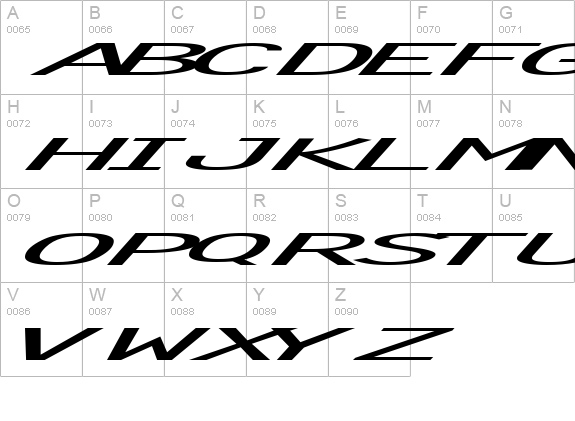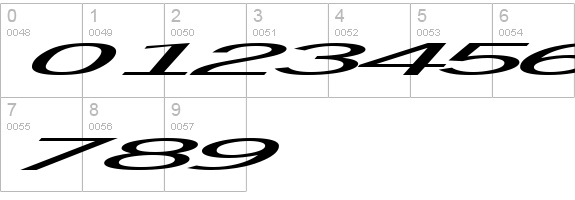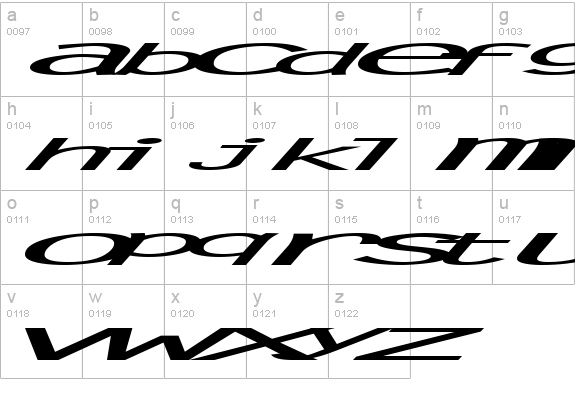
Significa Font Details
Introducing Significa, a captivating and modern typeface that effortlessly merges sophistication with contemporary style. This versatile font showcases a harmonious balance between elegance and legibility, making it the perfect choice for a wide range of design projects. With its clean and refined letterforms, Significa exudes a sense of professionalism and refinement. Each character is meticulously crafted, ensuring optimal readability in both print and digital mediums. Whether used for branding, editorial design, or web interfaces, this font effortlessly conveys a sense of refined aesthetics and sophistication. What sets Significa apart is not only its impeccable design but also its accessibility. This remarkable font is available for free download exclusively at FontsMarket.com. With just a few clicks, designers, creatives, and enthusiasts alike can easily access this exceptional typeface, unlocking its full potential to elevate their projects to new heights. Whether you are a professional designer seeking an elegant solution or an aspiring creative looking to make an impression, Significa offers the perfect blend of style and functionality. Its versatility allows it to adapt seamlessly to various design contexts, ensuring that your message is conveyed with clarity and impact. Significa is a font that truly embodies the spirit of contemporary design, offering a fresh and dynamic approach to typography. With its timeless appeal and effortless versatility, this font is a must-have for anyone seeking to enhance their creative endeavors. Download Significa for free at FontsMarket.com and unleash its limitless potential in your next design project.